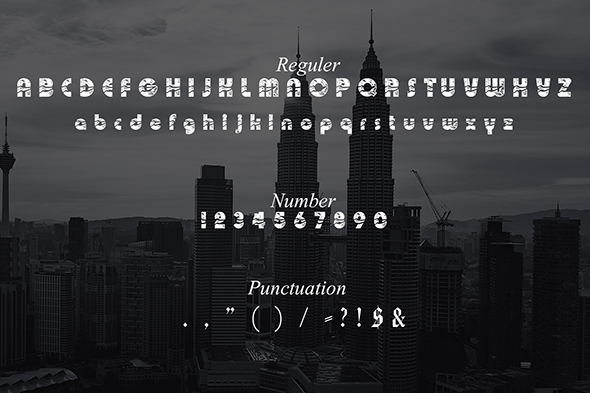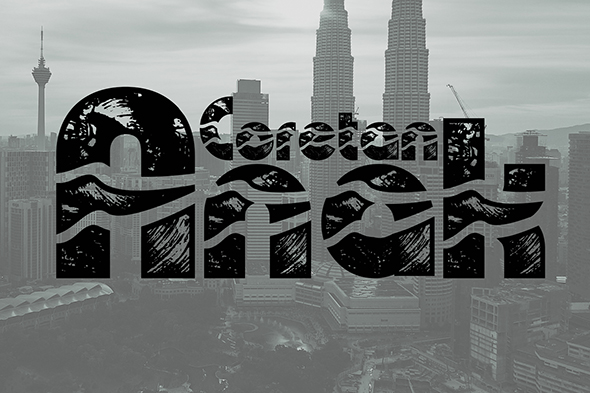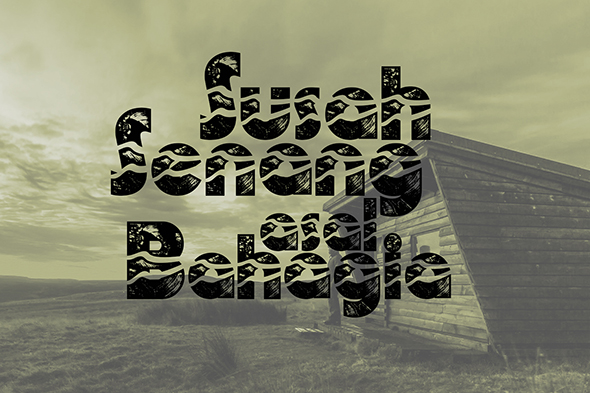
Introduction to Oentaian Font
As a designer, there’s nothing quite like the thrill of starting a new creative project, the blank page or canvas staring back at you, full of possibilities. It’s a moment of pure potential, where anything can happen. And for many of us, the right font can be the spark that sets it all off.
Enter Oentaian Font by Gblack Id – a stunning, high-quality design resource that’s about to change the game for your next project. With its sleek lines, elegant curves, and transparent background, this versatile font is perfect for designers looking to add a touch of sophistication and class to their work.
Key Features of Oentaian Font
- Size: 256 glyphs, covering a wide range of languages and characters
- Resolution: Optimized for high-resolution displays with crisp and clear typography
- Unique characteristic: Distinctive, hand-drawn style with a touch of elegance and sophistication
- Perfect for designers and artists looking for a versatile and stylish font for their creative project
Honest Review: Oentaian Font
I recently came across the Oentaian Font, a free download that caught my attention for its unique style and potential use in creative projects. As a designer, I was excited to dive in and see if it lived up to its promise.
What works well is the font’s high quality and versatility. It comes in a range of styles, from bold and playful to elegant and refined. The transparent background makes it easy to customize and pair with other design elements.
I particularly liked using the Oentaian Font for headings and titles, as it added a touch of sophistication to my designs. The font’s uniqueness also helped me stand out from the crowd and add some visual interest to my creative project.
- Unique and versatile style options
- High quality and clear typography
However, I did encounter some limitations. The font’s character set is somewhat limited, which can be a problem if you need to use it for a project that requires a wide range of characters.
Overall, I was impressed with the Oentaian Font and would recommend it as a design resource for those looking for a high-quality, unique font to add some flair to their creative project.
Tips for Getting the Most Out of Oentaian Font
To get the most out of the Oentaian Font, use it in conjunction with a transparent background to create a high-quality design resource. This font is ideal for creative projects that require a unique and eye-catching design element.
The Oentaian Font is commonly used in branding, logos, and marketing materials. Its high-quality design makes it an ideal choice for designers and creatives looking for a unique and professional font.